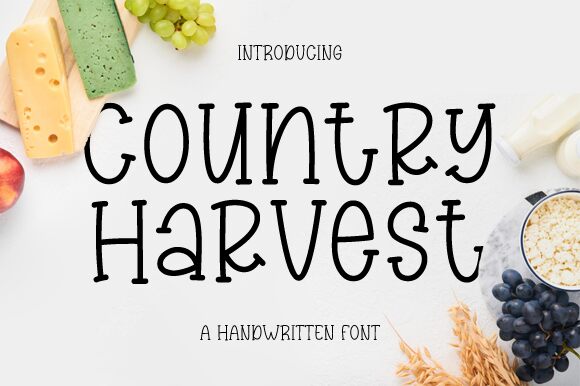
Country Harvest
Country Harvest, a charming creation by Graphix Line Studio, embodies the whimsical spirit of cartoon aesthetics with a display font that's as versatile as it is delightful. Its semi-light weight lends a breezy, approachable feel to the typeface, making it an excellent choice for projects that require a touch of playfulness without sacrificing readability.
The font's stylized characters dance with a rustic cheerfulness, suggesting the simplicity and joy of rural life. The subtle irregularities in the letterforms mirror the natural imperfections found in handcrafted goods, adding an authentic and organic touch to any design.
Whether you're creating an eye-catching headline for an artisan market poster or seeking to infuse your branding with a heartwarming, countryside vibe, Country Harvest offers creative minds the perfect balance between playful charm and clear communication. This font is well-suited for children's books, packaging designs for natural products, or any project aiming to capture a sense of homegrown happiness.